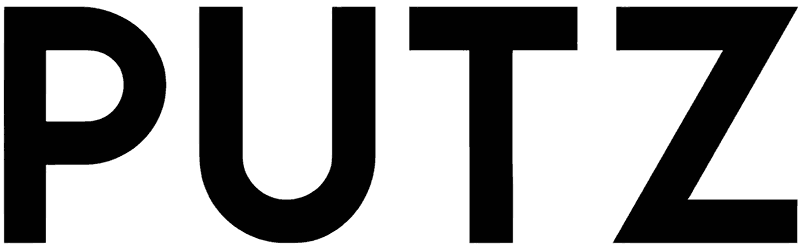
Putz Font
Let’s see a modern and matchable item that could be used for any design. Putz is a unique sans-serif font with a bold and modest style. Even if there is no offer for lowercase letters and most punctuation marks, this choice would be a nice illustration for many projects, such as posters, titles, business cards, and so on.